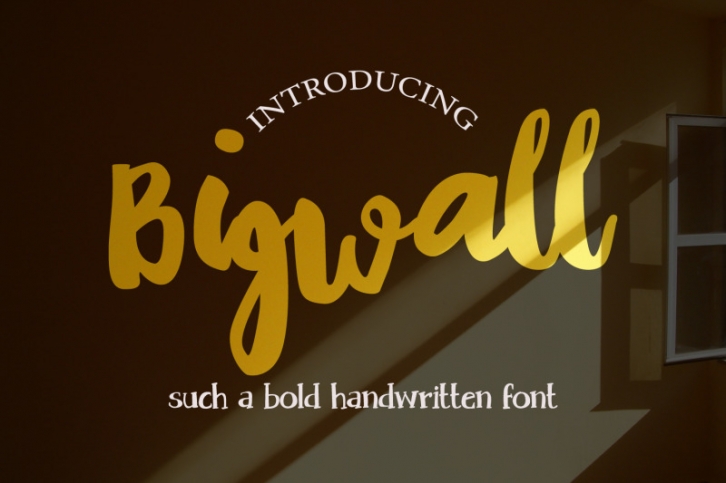
Bigwall is a flowing handwritten font, described by an elegant touch, dynamic script that feels beauty and friendship. Perfect for your favorite projects, use it to take any design idea to the next level